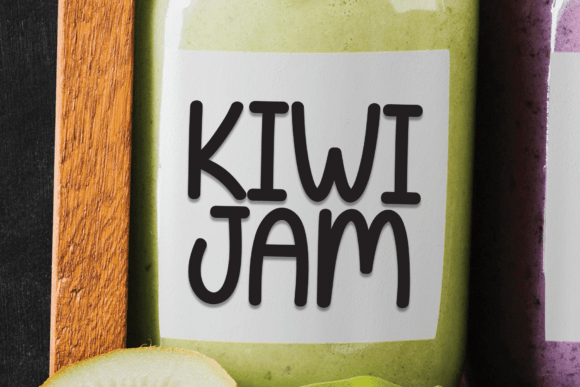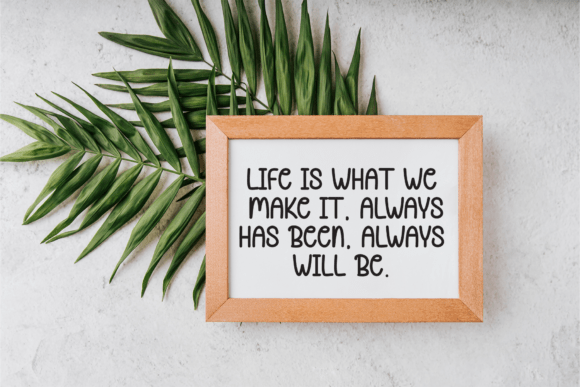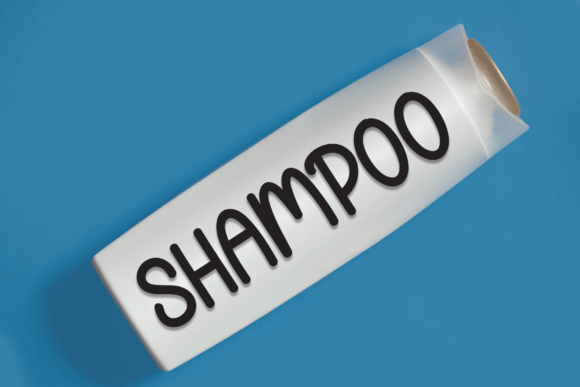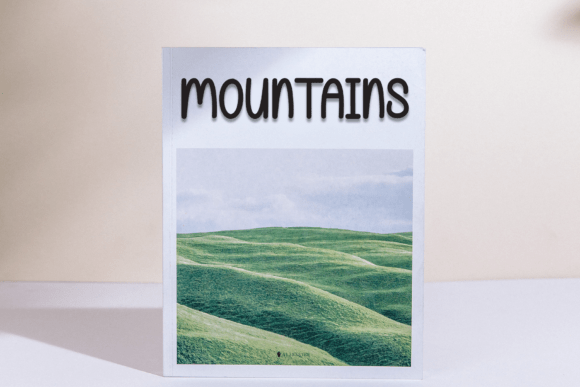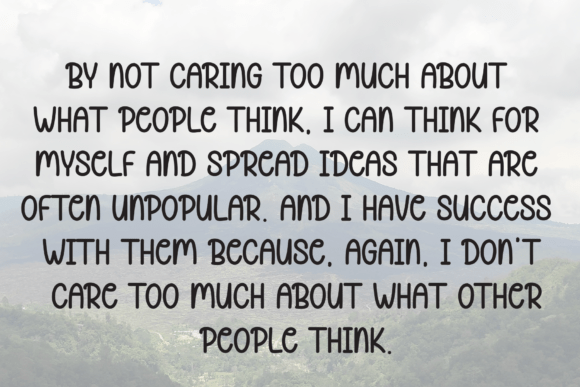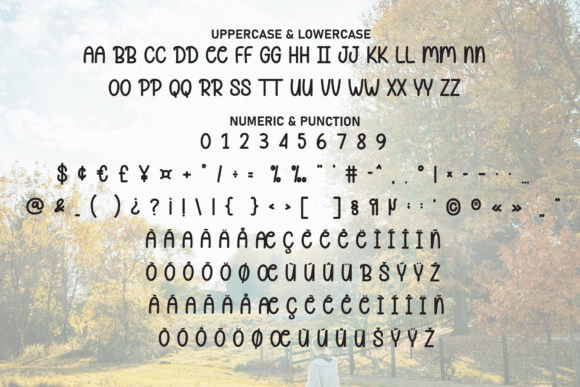
Discover the Delightful Daily Warmer Font: A Playful Touch for Your Designs
Have you ever been in the middle of a design project, and suddenly, you’re stuck on finding the perfect font? I recall a recent experience where a client requested a whimsical and friendly font for their wedding invitation design. After hours of searching, I stumbled upon the Daily Warmer Font, and it instantly brought a smile to my face. In this article, we’ll dive into the world of this charming handwritten display font and explore its features, usage, and alternatives.
A Personal Review of Daily Warmer Font
As a designer, I’m always on the lookout for fonts that can add a touch of personality to my projects. Here’s what I love about Daily Warmer Font:
- ✨ Sweet and friendly vibe that suits various design projects
- ✅ Easy to read and understand, even in smaller sizes
- 🎉 Fun and playful feel that’s perfect for creative ventures
- 💕 Beautifully crafted with a distinct and heartwarming flourish
While Daily Warmer Font is an excellent choice, it’s not without its quirks:
- 🤔 Limited availability of certain characters and glyphs
- ⚠️ May not be suitable for body text or lengthy content due to its display nature
- Experiment with OpenType features, such as stylistic alternates, to add more personality to your text.
The Backstory of Daily Warmer Font
Daily Warmer Font was crafted with love and care by a talented type designer who aimed to create a font that would bring joy and whimsy to design projects. The font’s unique and playful feel makes it perfect for creative ventures, wedding invitations, and personalized cards.
| What type of projects is Daily Warmer Font best suited for? | Daily Warmer Font is perfect for creative projects, wedding invitations, personalized cards, and any design venture that requires a playful touch. |
| Is Daily Warmer Font suitable for body text? | No, Daily Warmer Font is a display font and may not be suitable for body text or lengthy content due to its playful and decorative nature. |
With Daily Warmer Font, you can add a touch of whimsy and playfulness to your design projects. Whether you’re a designer, crafter, or creative hobbyist, this font is sure to bring a smile to your face and inspire your creativity.